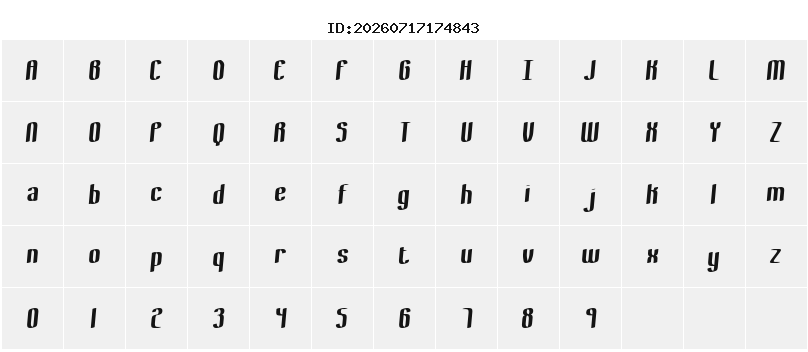
• Font Name: Bewilder Thick BRK
About Bewilder Thick BRK.ttf
Bewilder Thick BRK.ttf is a modern, elegant sans-serif font designed for ultimate readability and visual harmony. Perfect for branding, headlines, web design, and print materials.